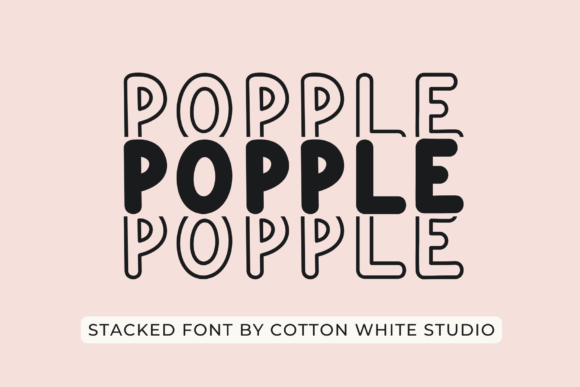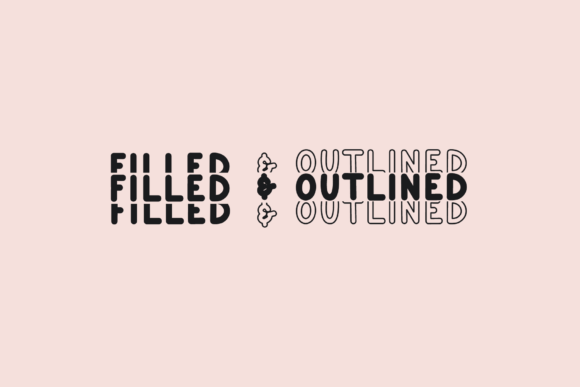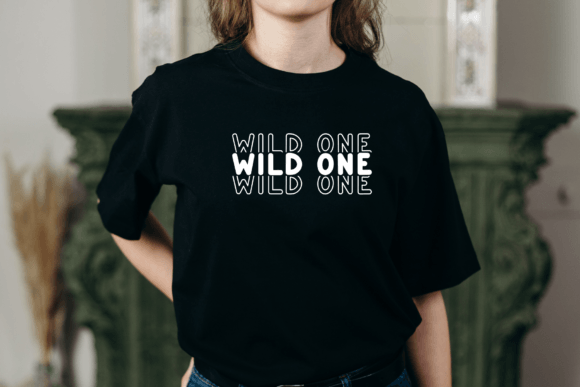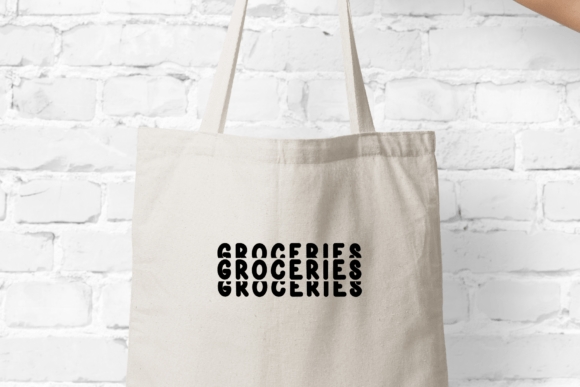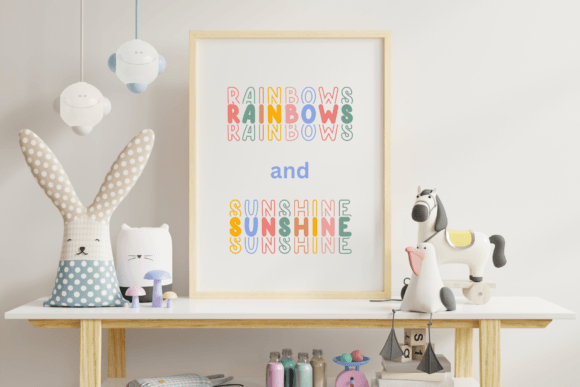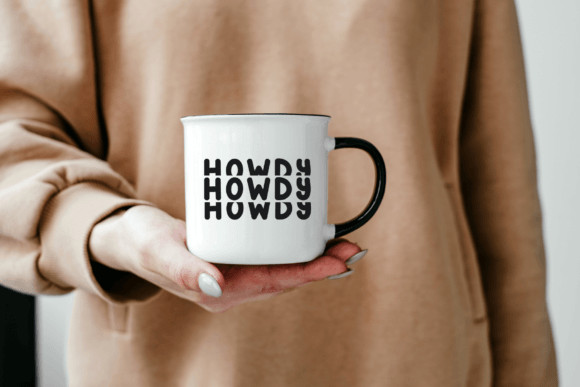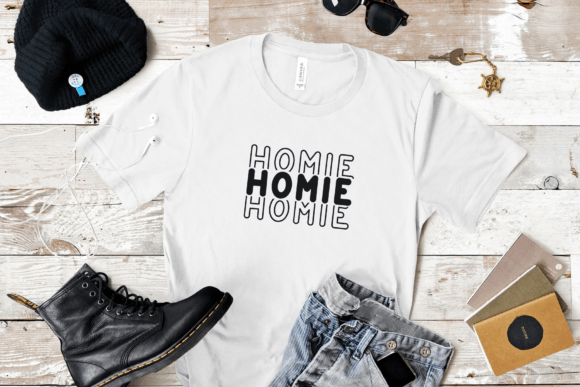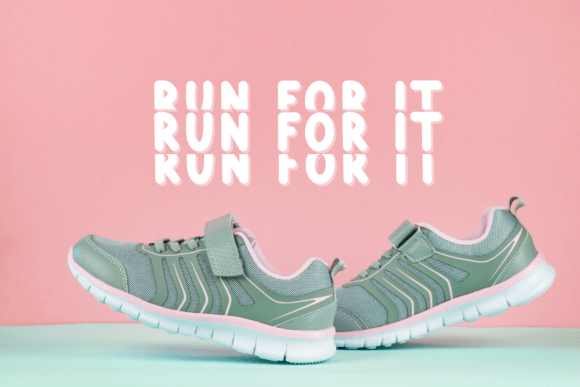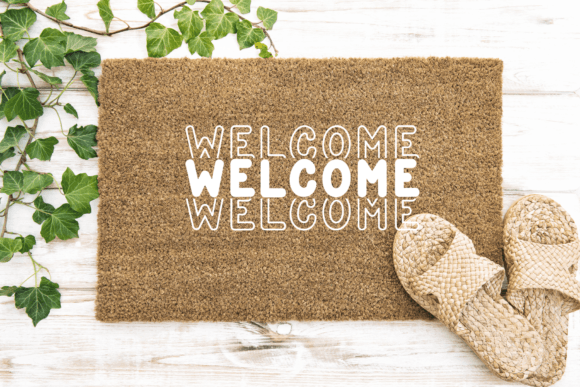
Popple Font
Popple is a typeface designed to be used in headlines, titles, and short bursts of text. It’s characterized by its bold and attention-grabbing appearance and features unique and creative letterforms that set it apart from more traditional text font styles.